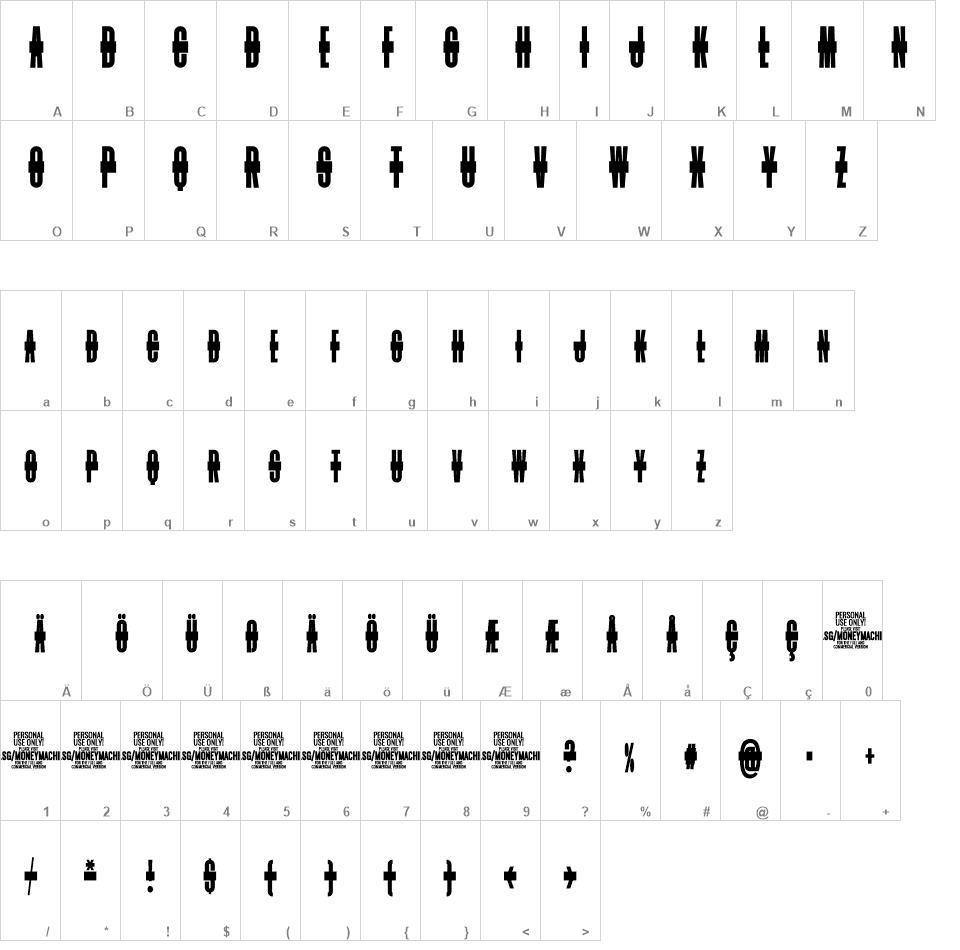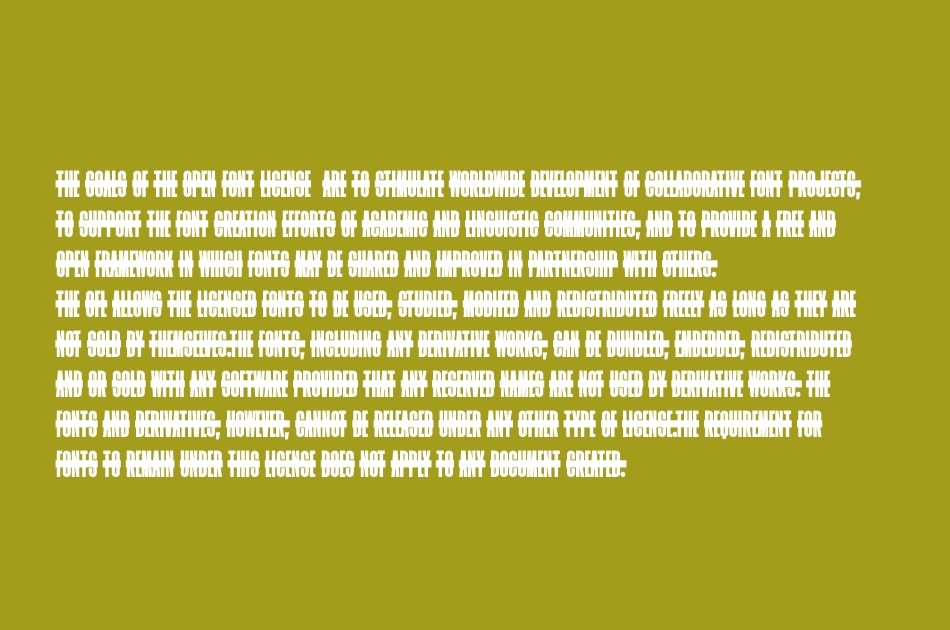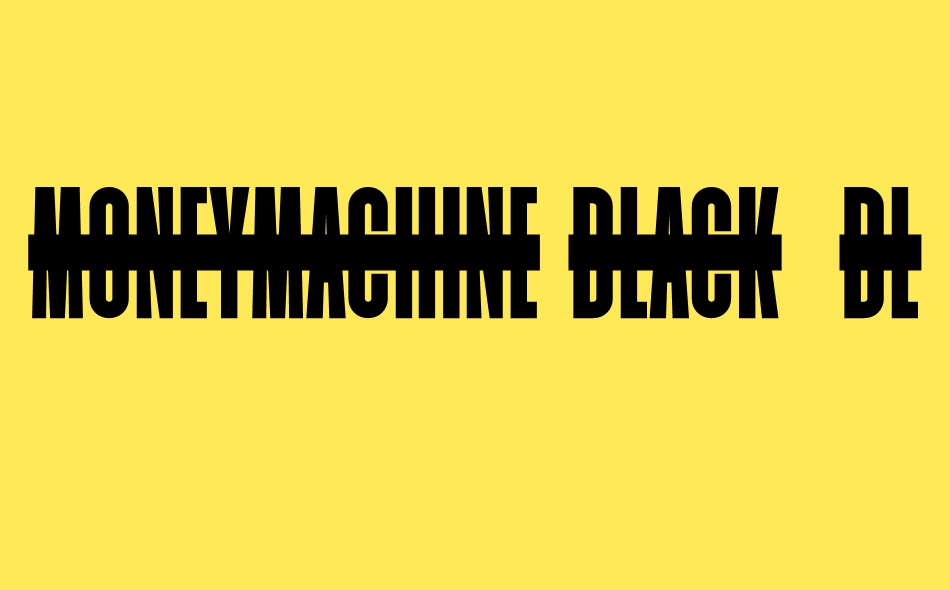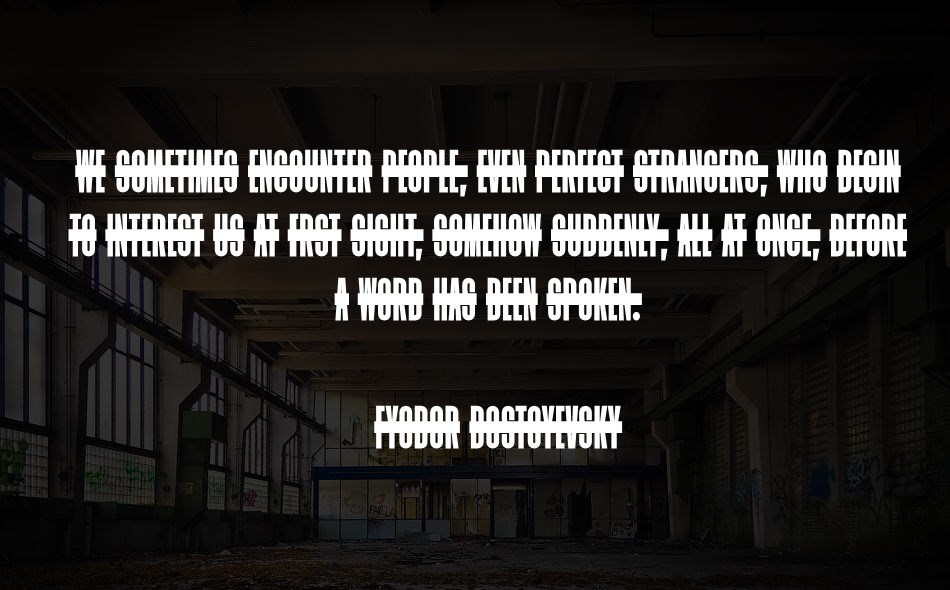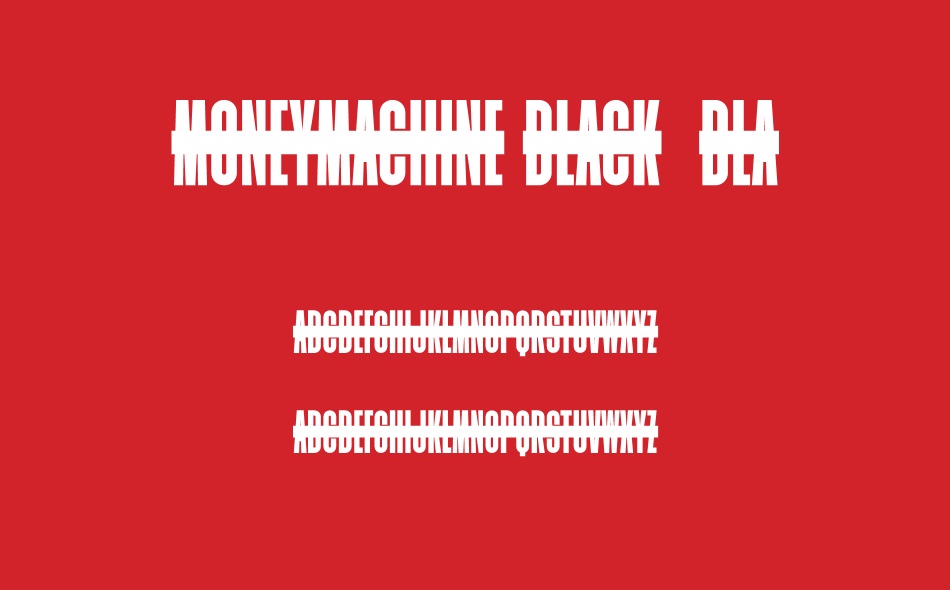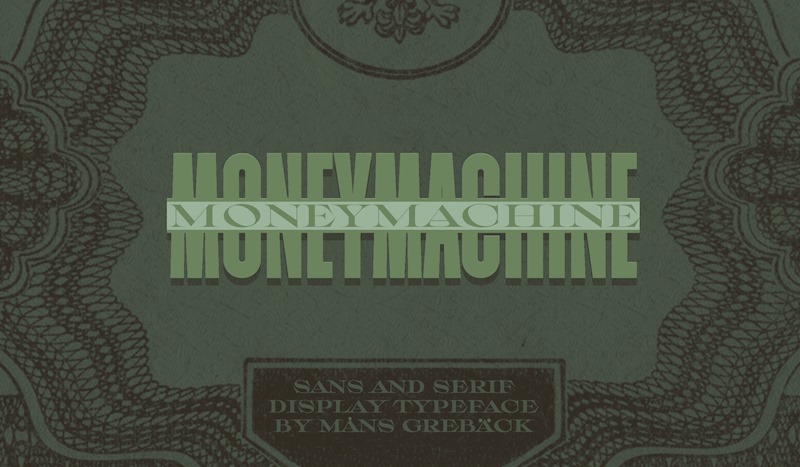
Moneymachine font
Moneymachine is a sans and serif combined display typeface.
Inspired by the art of money printing, the typography used for certificate production and classic letterforms, Moneymachine uses a traditional and perfected serif font and blends it together with a modern and clean sans-serif. The result is an original and confident work, which fits perfectly as a logotype or headline in any context that requires that extra touch of coolness.
The Moneymachine family consists of six fonts: The Regular that combines sans and serif. Inverted for a white-on-black version. The Serif and Sans for more basic writing. White and Black for a lettering with a banner.
The font is built with advanced OpenType functionality and has a guaranteed top-notch quality, containing stylistic and contextual alternates, ligatures and more features; all to give you full control and customizability. It has extensive lingual support, covering all Latin-based languages, from North Europe to South Africa, from America to South-East Asia. It contains all characters and symbols you'll ever need, including all punctuation and numbers.